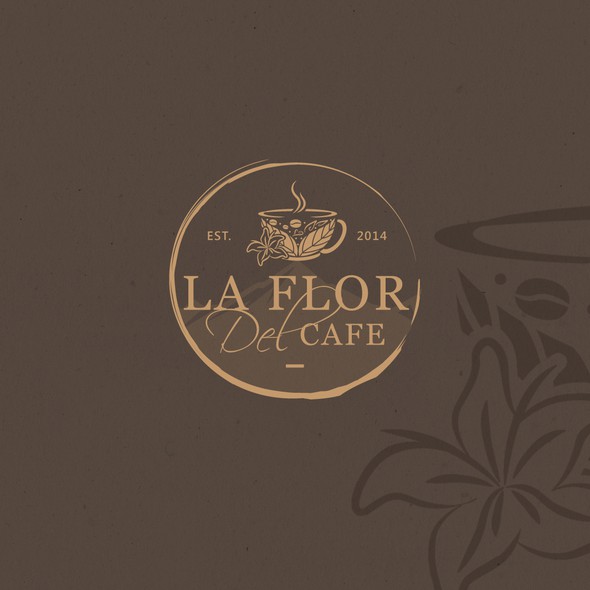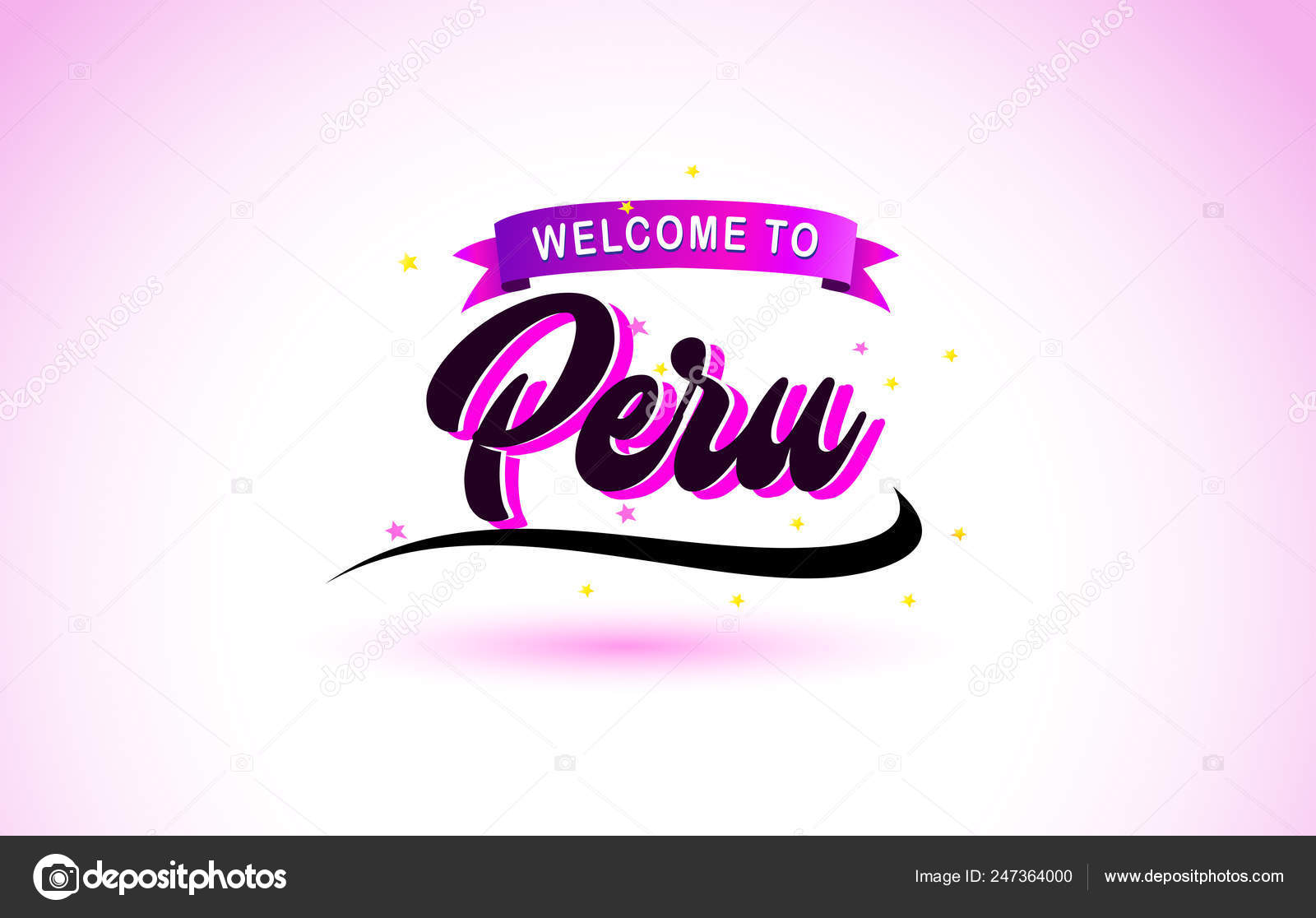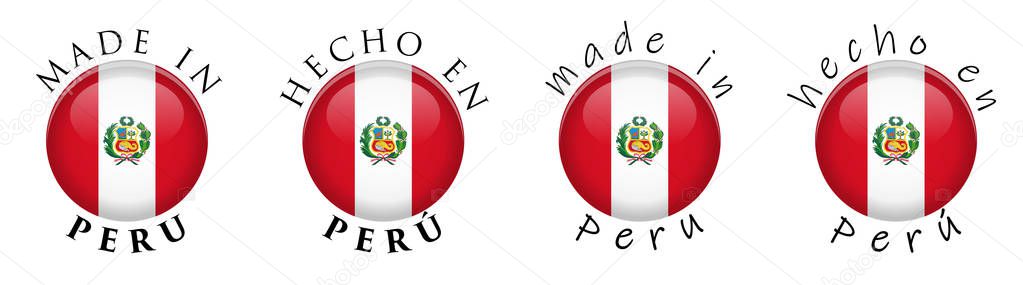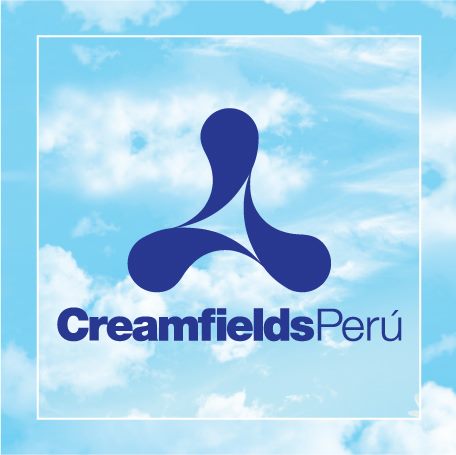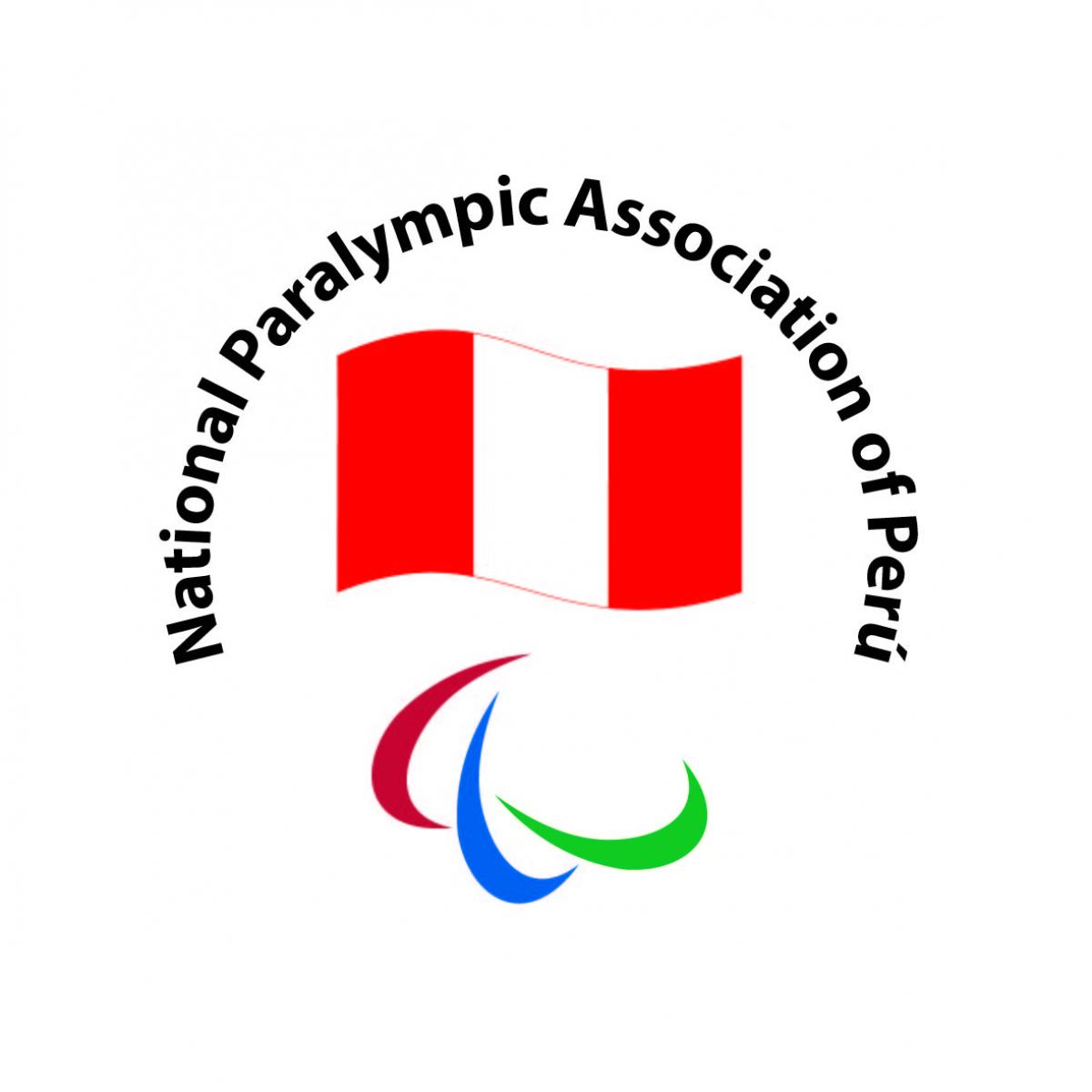
Peru Logo Font
Logo fonts are essential for the visual appearance of your brand name.
Peru logo font. Slab serif logo fonts are bolder louder serifs with large letterforms designed to be seen from a long distance. Pair one of these free logo fonts with an icon and you are ready to start your business. The new typeface has a spiral squiggle at the end of some of the capital letters tying in with the.
Cf peru adventure by cloutierfontes. Script logo fonts are both formal and casual typefaces that have the loops and flourishes of script handwriting. Indiandesigns by sassy graphics.
Looking for aztec fonts. Peru country logo comics car toon ii bold font.